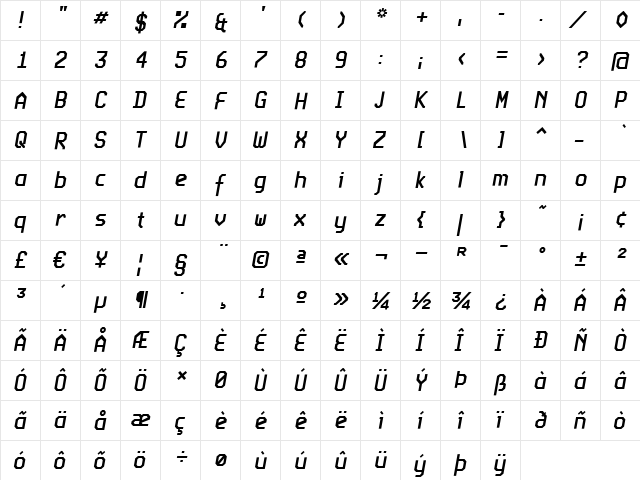
Expo Cond Regular
Design Context for Expo Cond Typeface
Expo Cond takes a measured approach to typography — its balanced proportions and neutral character make it a reliable workhorse for both digital and print work. The condensed width makes it efficient for tight spaces without sacrificing legibility.